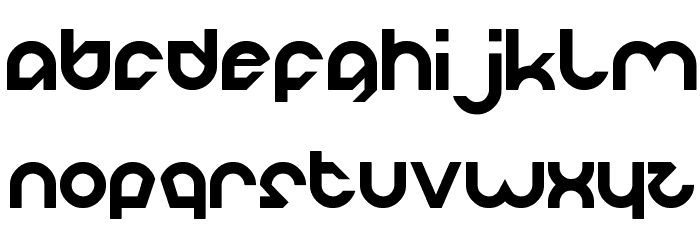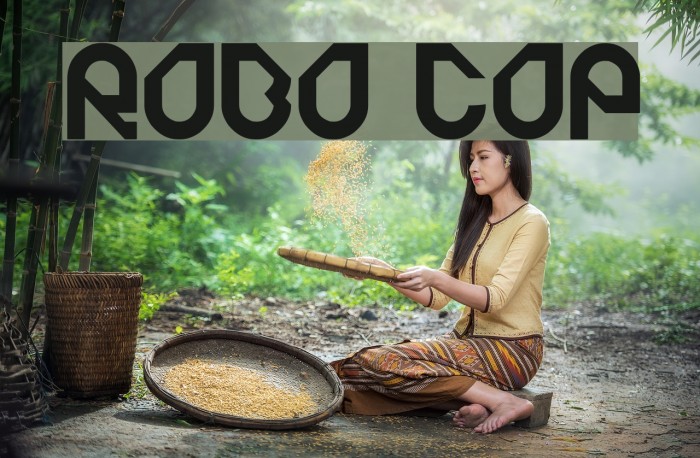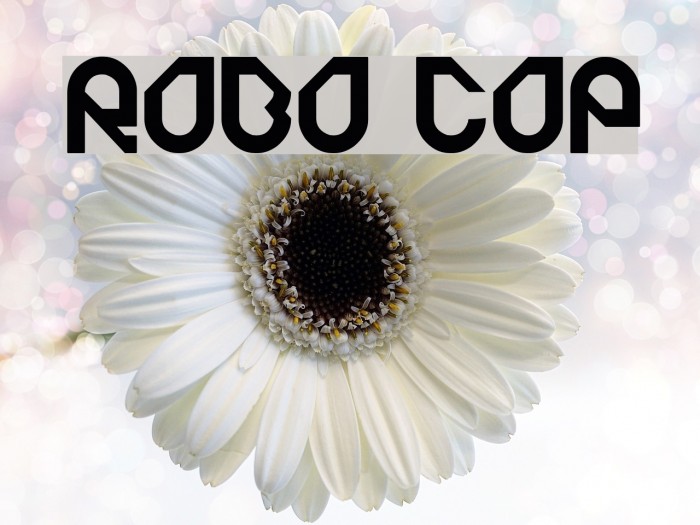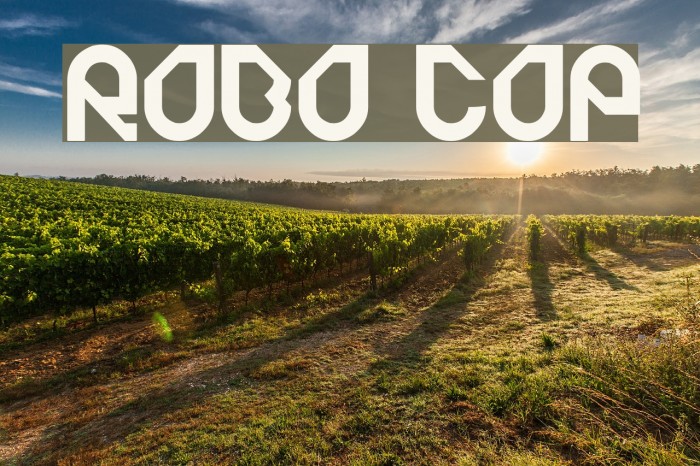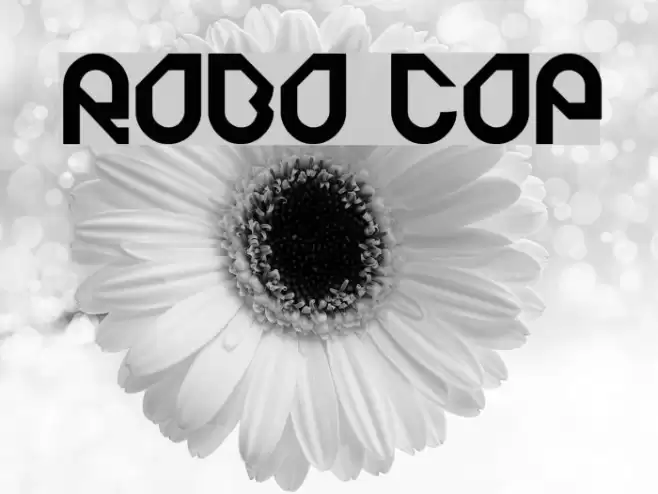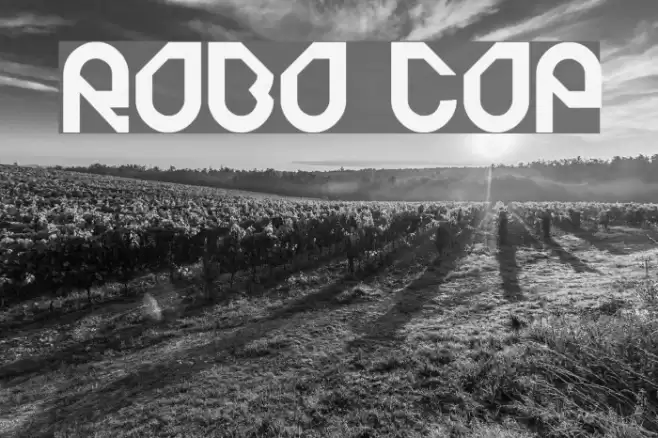
ROBO COP Font
This font features a futuristic and geometric design, characterized by sharp angles and bold lines. The uppercase letters exhibit a strong, mechanical appearance with distinct angular cuts, while the lowercase letters maintain a similar style but with a slightly softer approach. The numbers and special characters follow the same design principles, ensuring consistency throughout. The font's unique style makes it stand out, ideal for projects that require a modern and tech-inspired aesthetic. Its boldness and distinctiveness make it suitable for attention-grabbing applications.
A futuristic, geometric font with bold, angular lines.
- Proposed Projects: Ideal for sci-fi movie posters, tech company logos, video game titles, and futuristic-themed event branding.